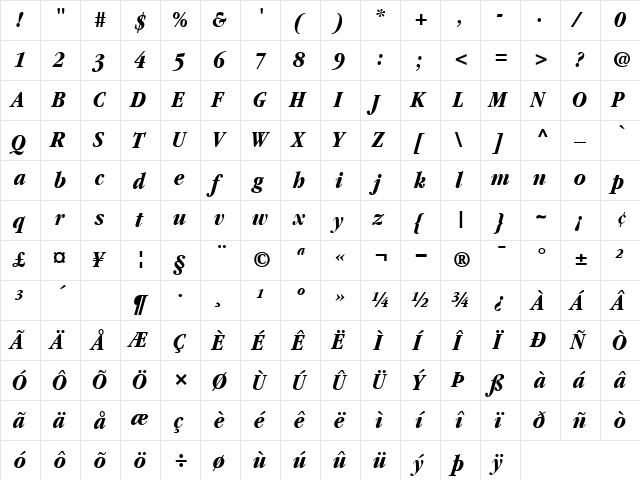
Garamond BoldCondensedItalic Font Preview
Design Context for Garamond Typeface
Garamond offers clean, dependable letterforms without strong stylistic allegiance, making it a practical choice for designers who need flexibility. The dynamic lean of this cut emphasises speed and emphasis in any layout. The heavy weight commands attention and anchors typographic hierarchies. The condensed width makes it efficient for tight spaces without sacrificing legibility.
Pro Tip: Try Garamond for annotation and caption copy alongside an upright companion — the contrast in angle creates a dynamic but ordered typographic system.